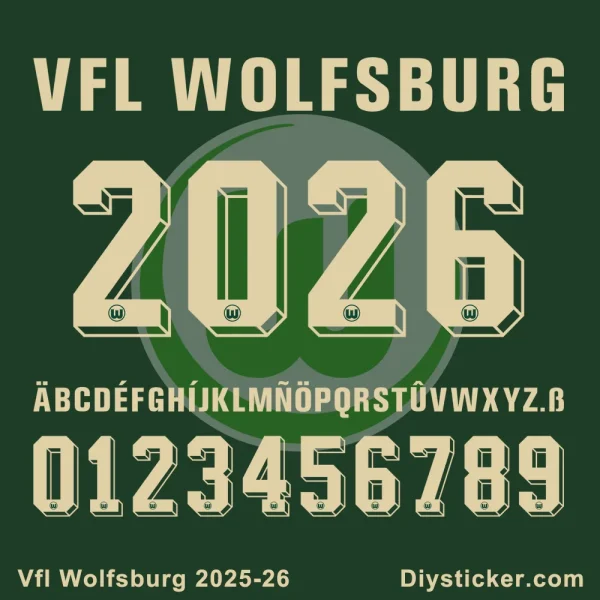
Design with the energy of VfL Wolfsburg using the official 2025-26 Season Font. This professionally crafted typeface replicates the club’s distinctive lettering, ideal for creating authentic jerseys, fan merchandise, and digital content for Die Wölfe supporters.